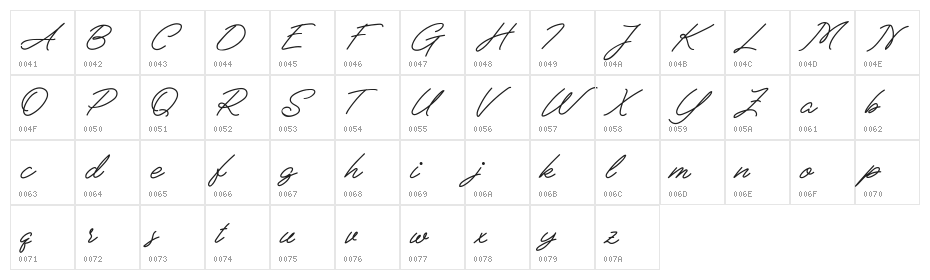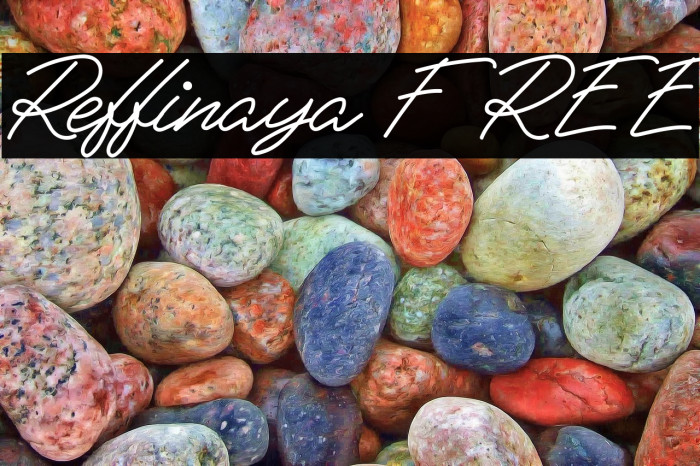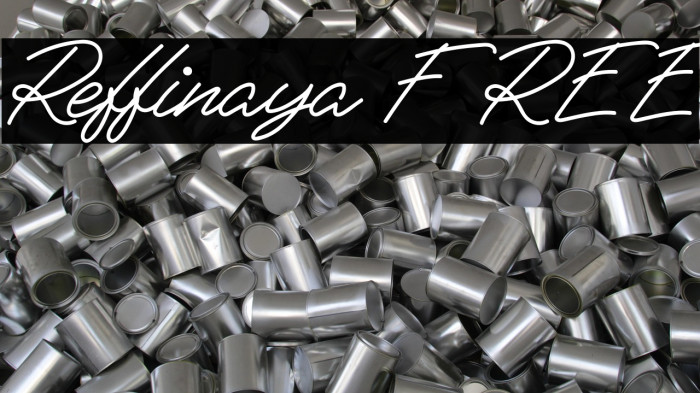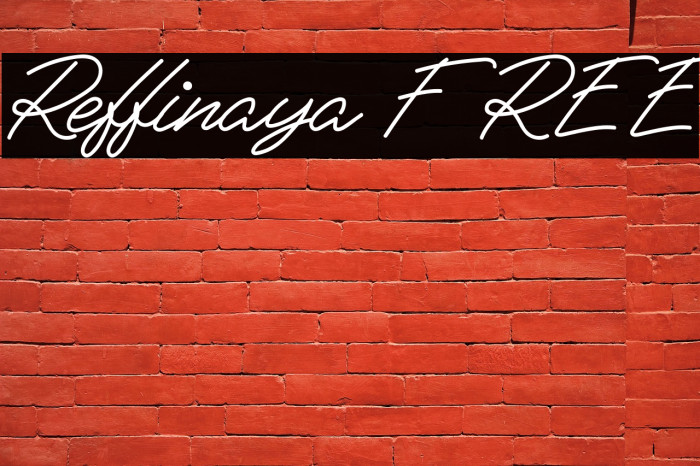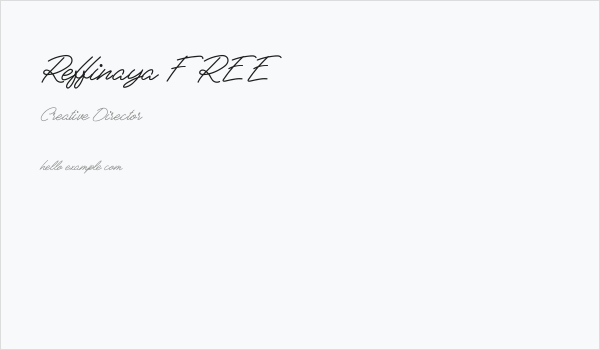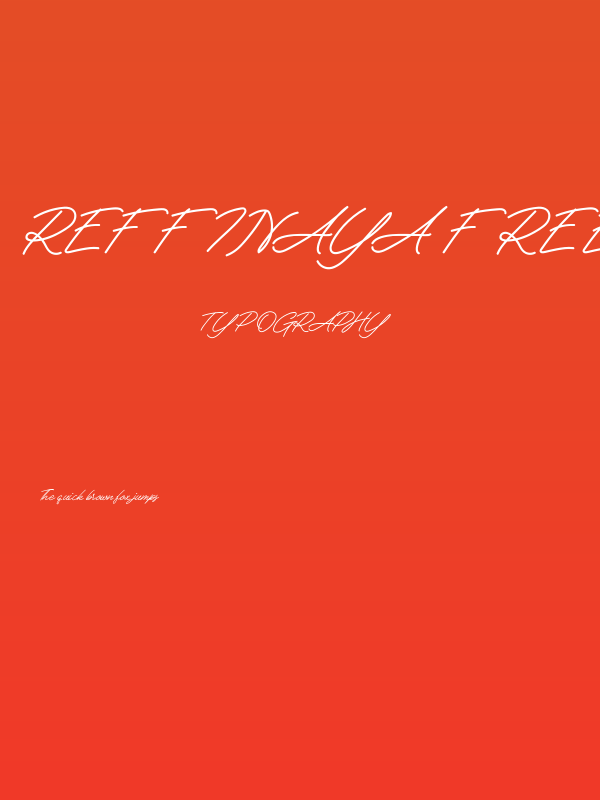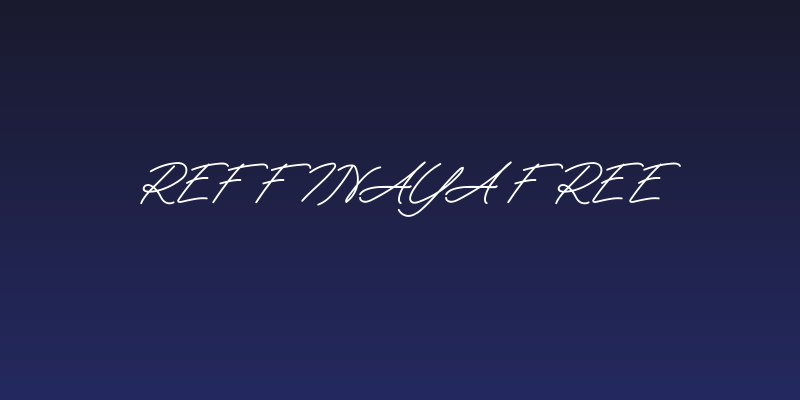
Reffinaya FREE Font
Reffinaya FREE Description
This elegant script font features a flowing, cursive style with smooth, connected strokes that mimic natural handwriting. The uppercase letters are slightly larger and more ornate, while the lowercase letters maintain a consistent, fluid motion. The font exudes a sense of sophistication and grace, making it ideal for formal invitations, branding, and decorative purposes. The characters are well-spaced, allowing for readability while maintaining the artistic flair of the script. The font's design is both classic and versatile, suitable for a variety of creative projects.
| Proposed Projects | Ideal for wedding invitations, elegant branding, greeting cards, and decorative designs. |